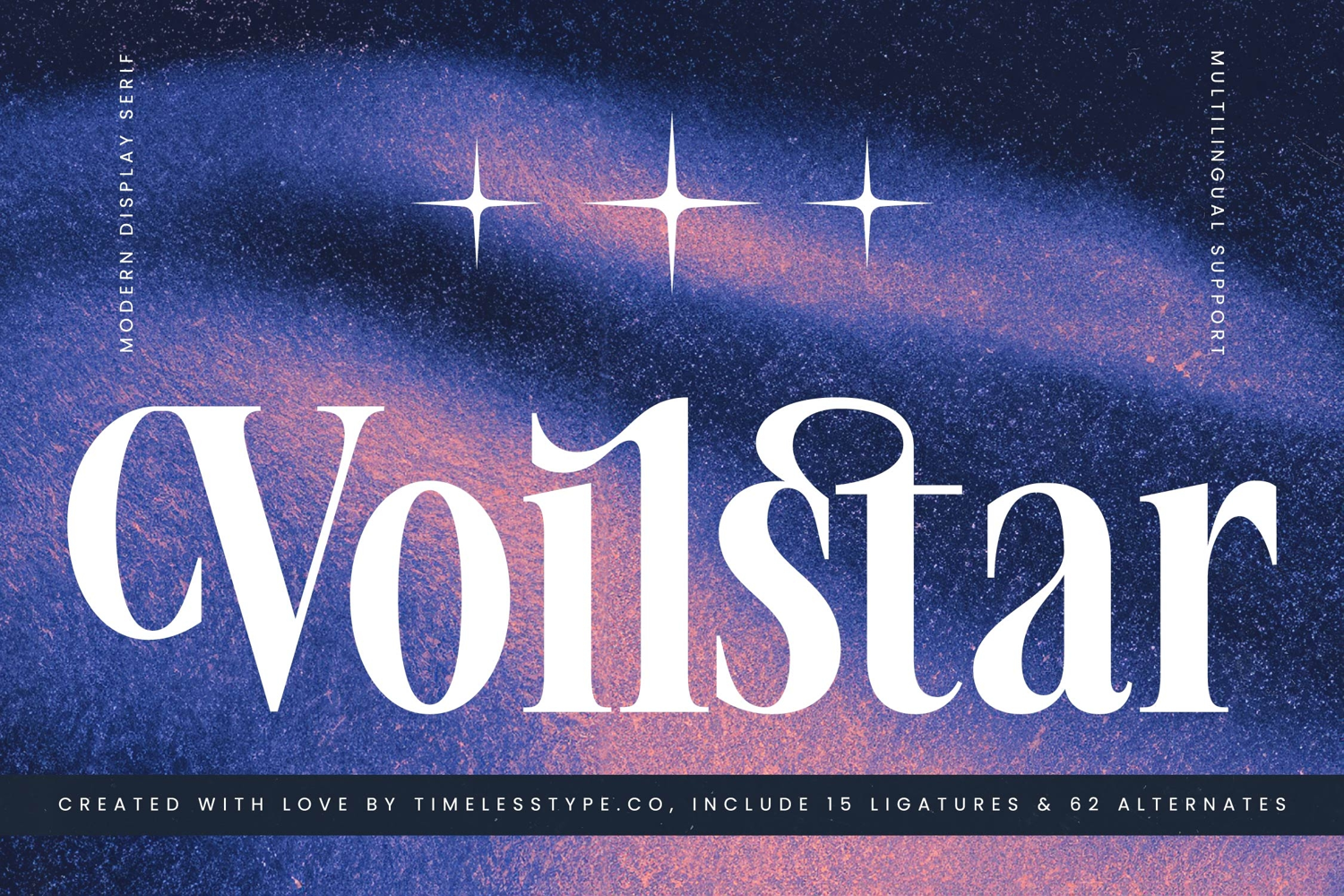
Voilstar - Modern Display Serif
Voilstar italic
Voilstar
Voilstar Typeface is a modern display serif font that blends elegance, luxury, and expressive detail. Featuring 15 ligatures and 62 stylistic alternates, this typeface gives designers creative freedom to craft striking and sophisticated typography. With its tall structure, high-contrast strokes, and ornamental curves, Voilstar exudes refinement and authority, making it the perfect choice for projects where text must stand as a powerful visual centerpiece. Its timeless yet contemporary feel makes it versatile for both print and digital design.